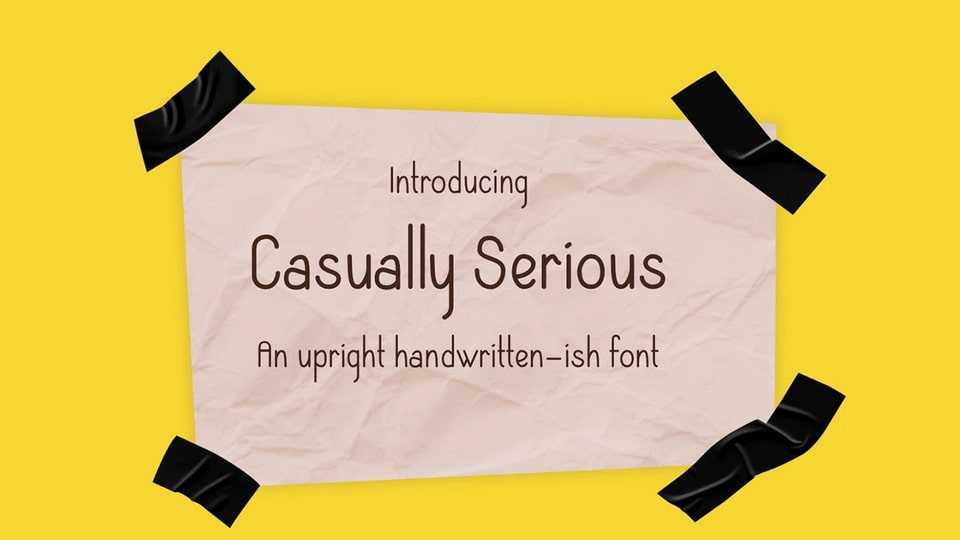
Download Casually Serious font, a handcrafted upright typeface that blends relaxed charm with quiet confidence. Its softly uneven strokes feel personal and spontaneous.
Designer: Nur Cahyo